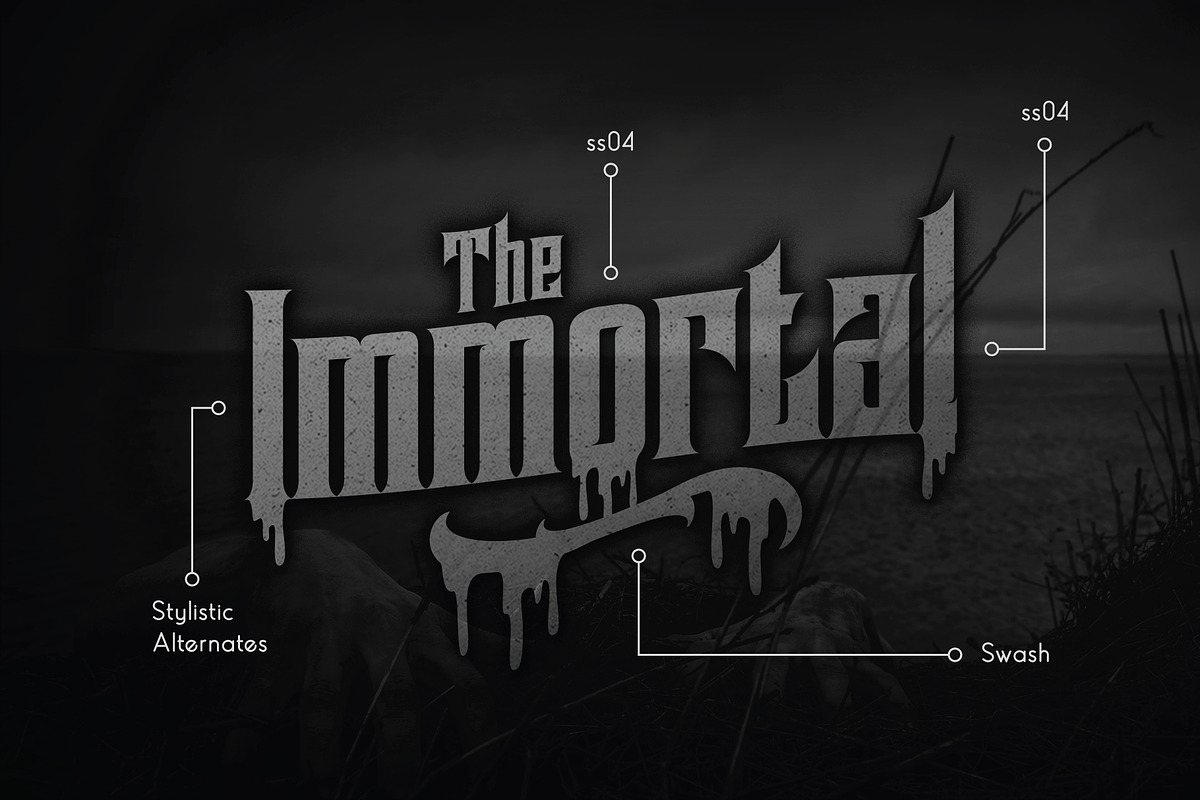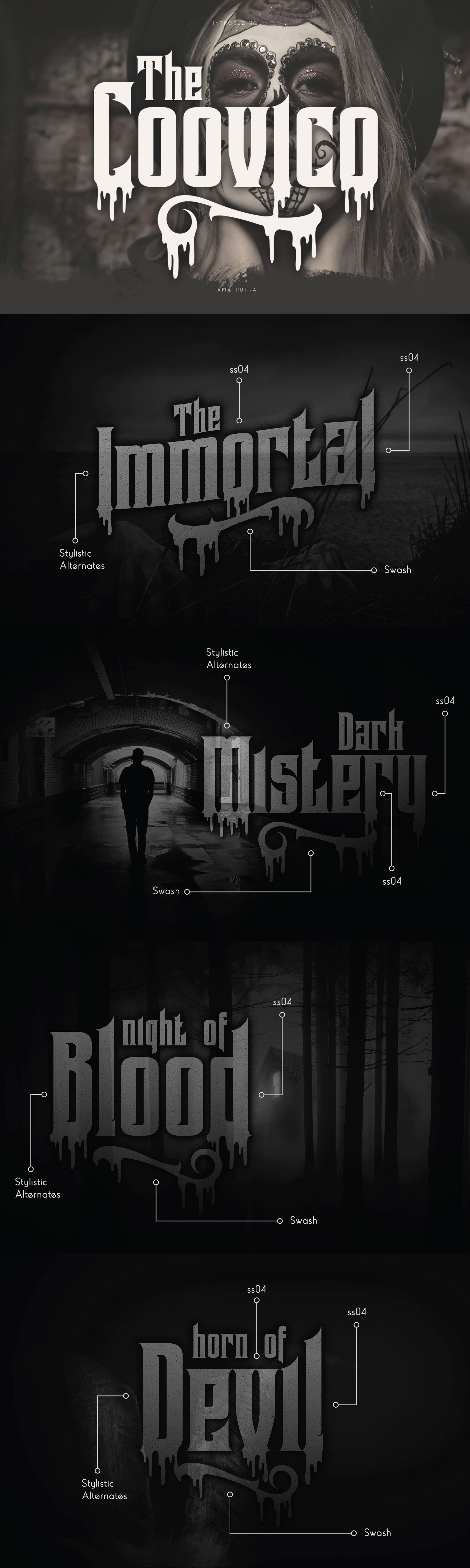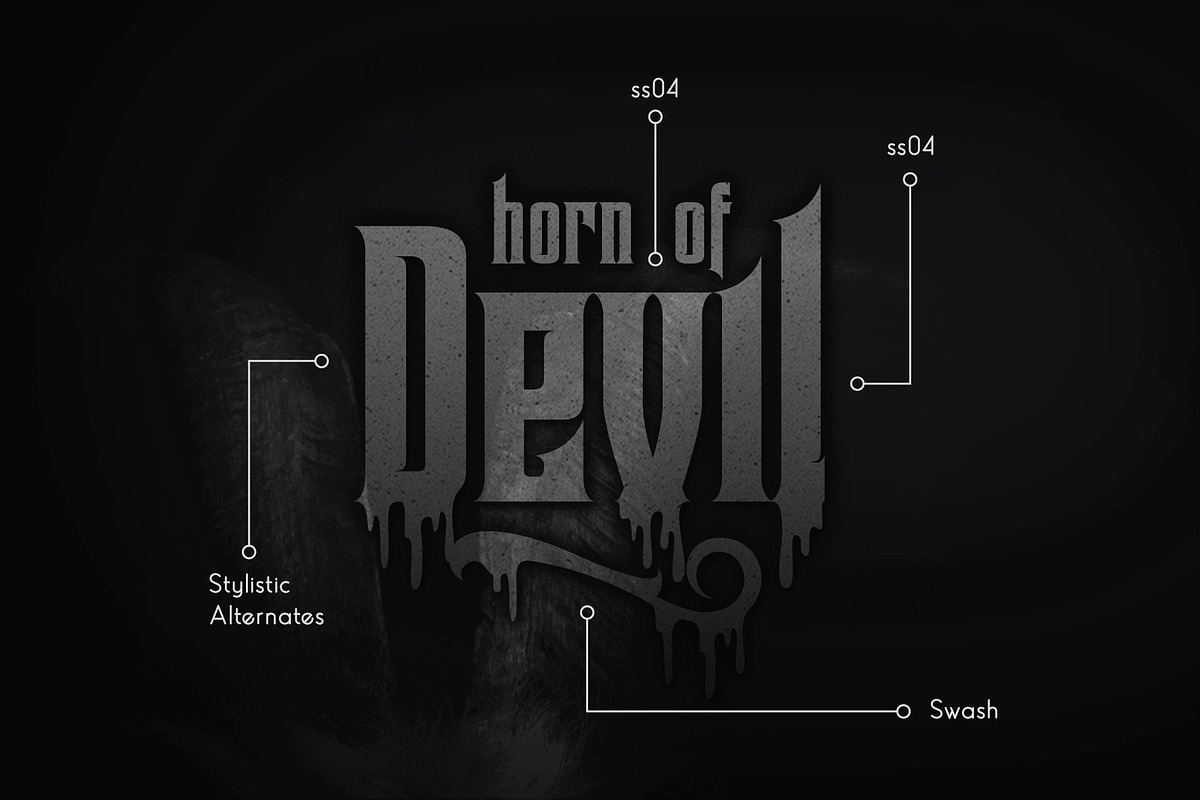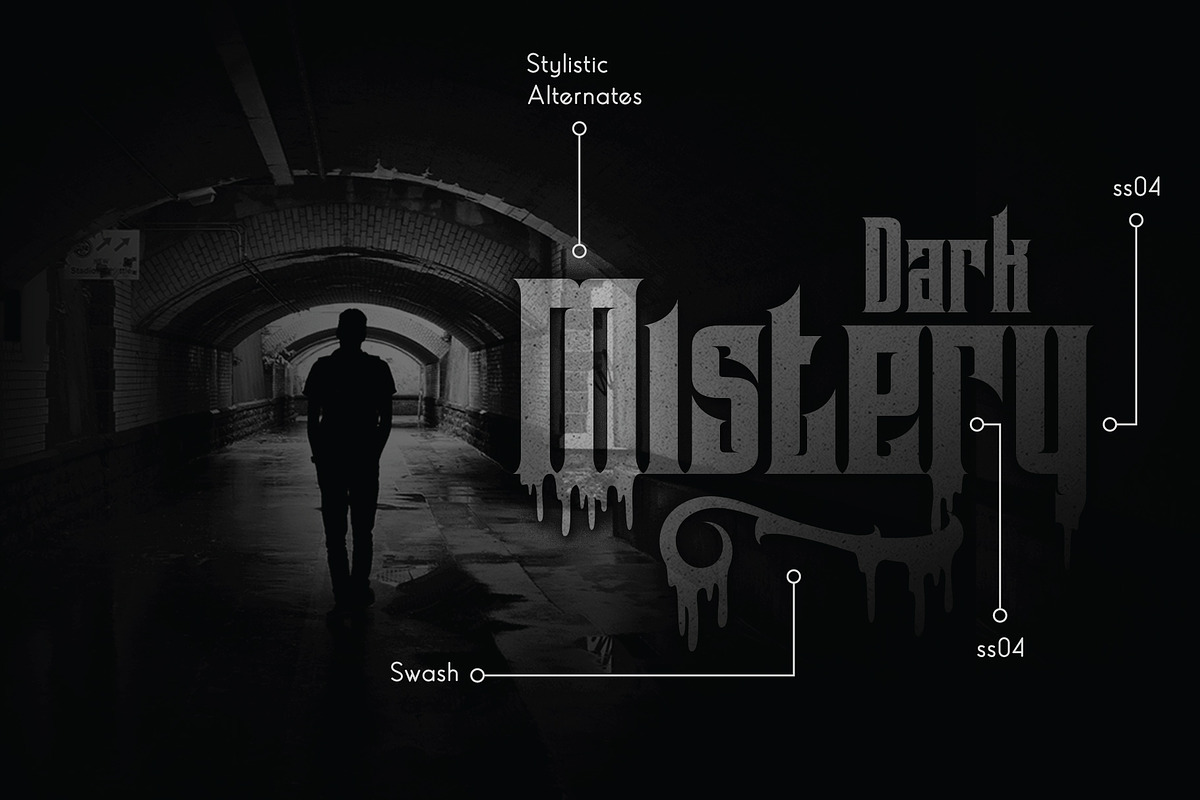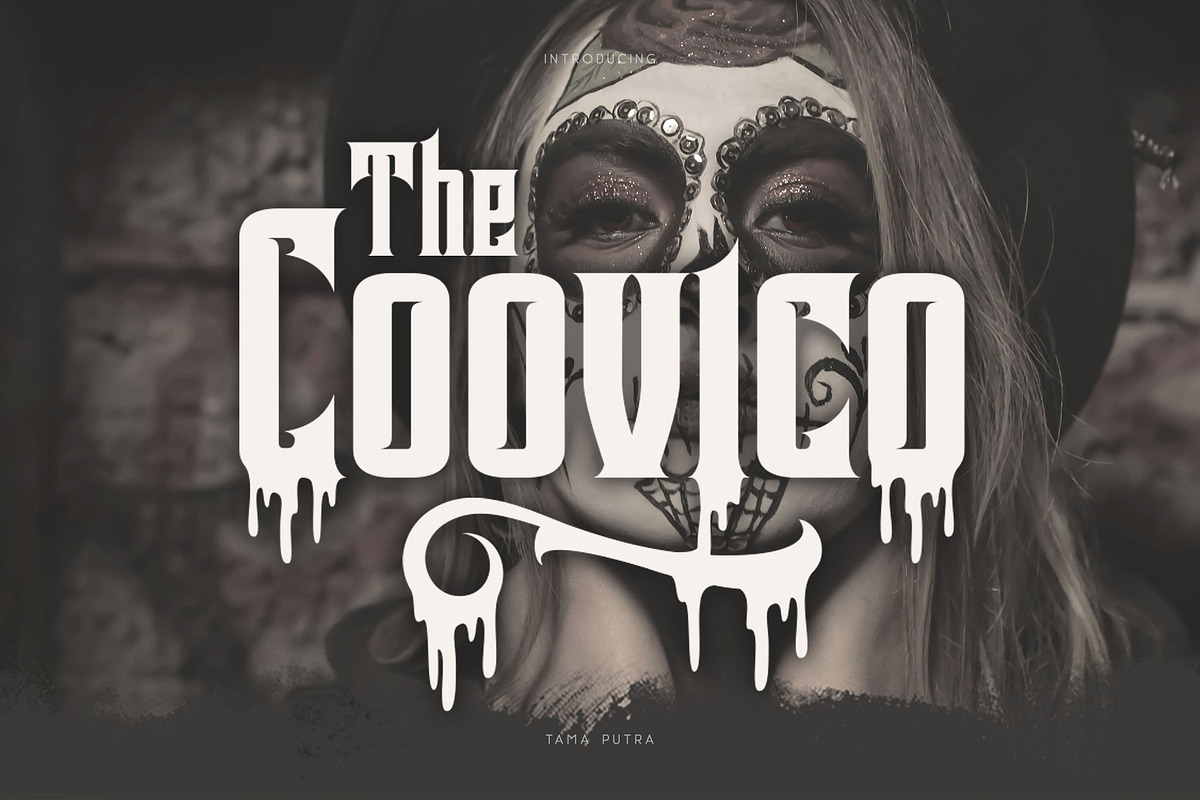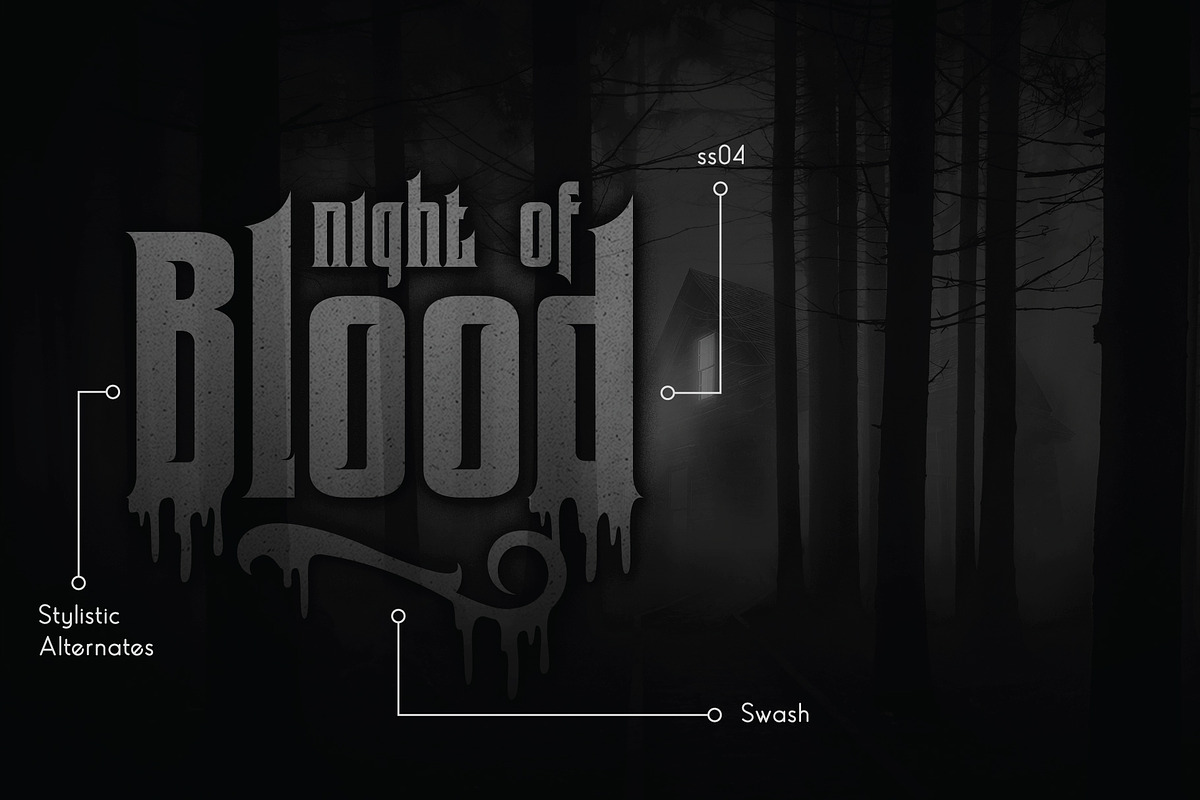
Coovico Bloody Typeface
Coovico Typeface
Coovico is a typeface inspired from horror style and blood accent.
It includes a full set of uppercase and lowercase letters as well as multi-lingual and currency support, numerals, punctuation, alternates, ligatures and some extra glyphs.
- Character Set A-Z (Uppercase & Lowercase)
- ss01, ss02, ss03, ss04
- Standard & Discretionary Ligatures
Coovico typeface is suitable font for creating beautiful things and many creative work.